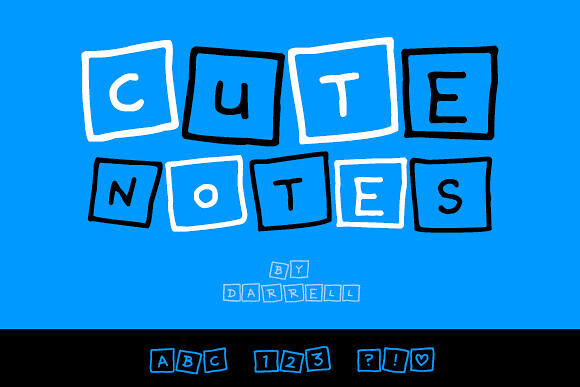
Cute Notes is a playfully decorative, hand-drawn styled font that is friendly and whimsical, perfect for kid centered designs or projects. Letters are drawn inside wobbly boxes, with lots of soft edges.